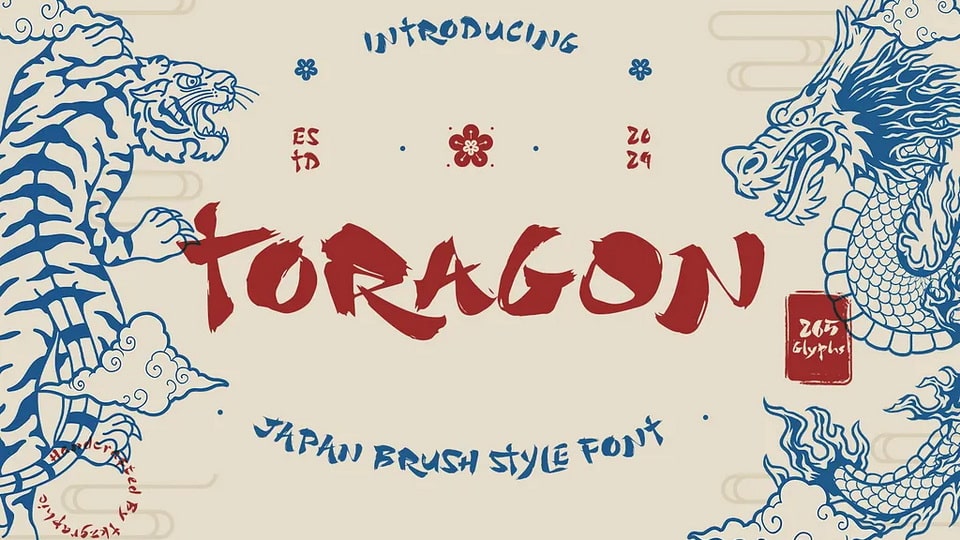
Download Toragon font, inspired by the Japanese words for Tiger (Tora) and Dragon, symbolizing a powerful blend of strength and courage. Toragon font is ideal not only for Japanese-themed designs but also for any Asian-inspired projects.